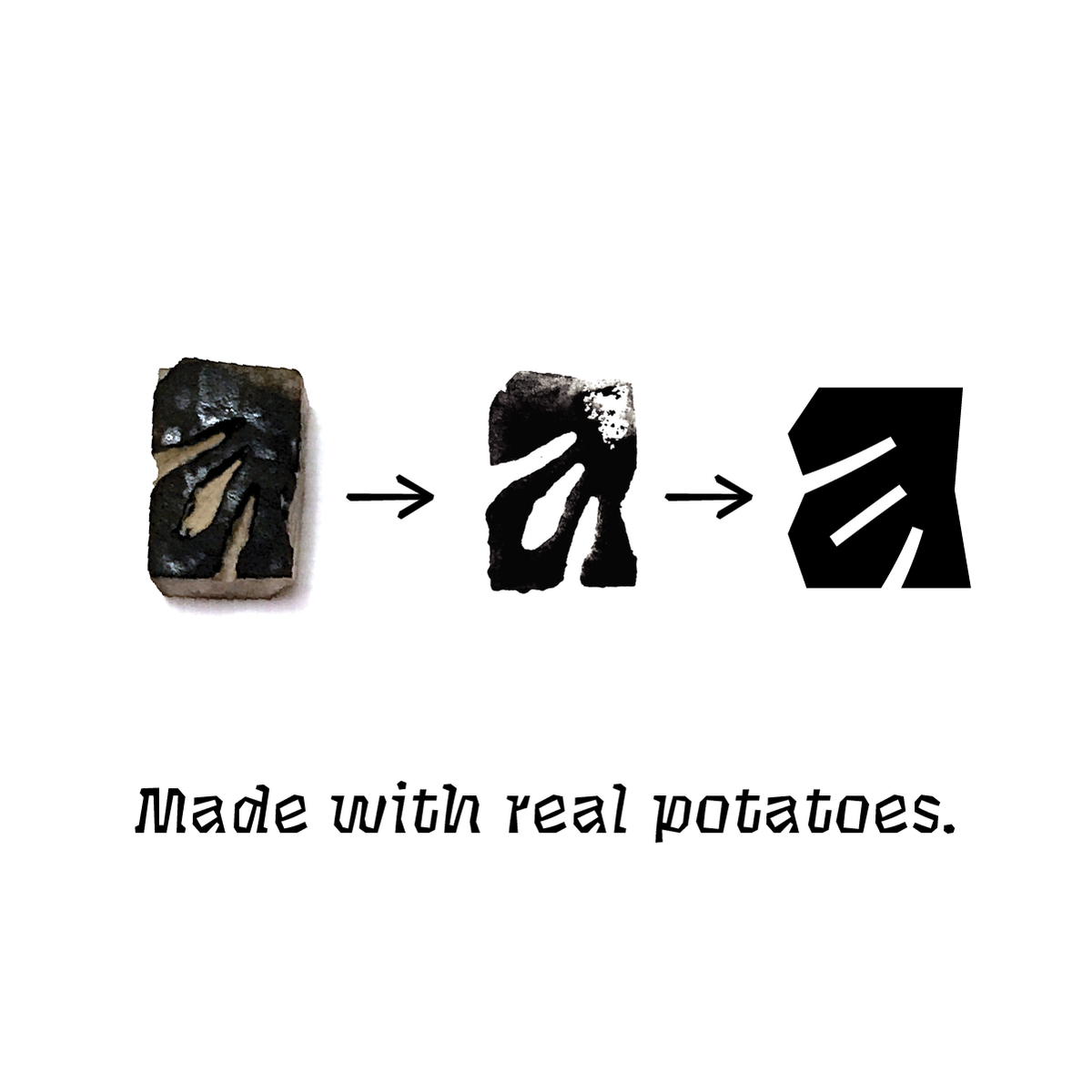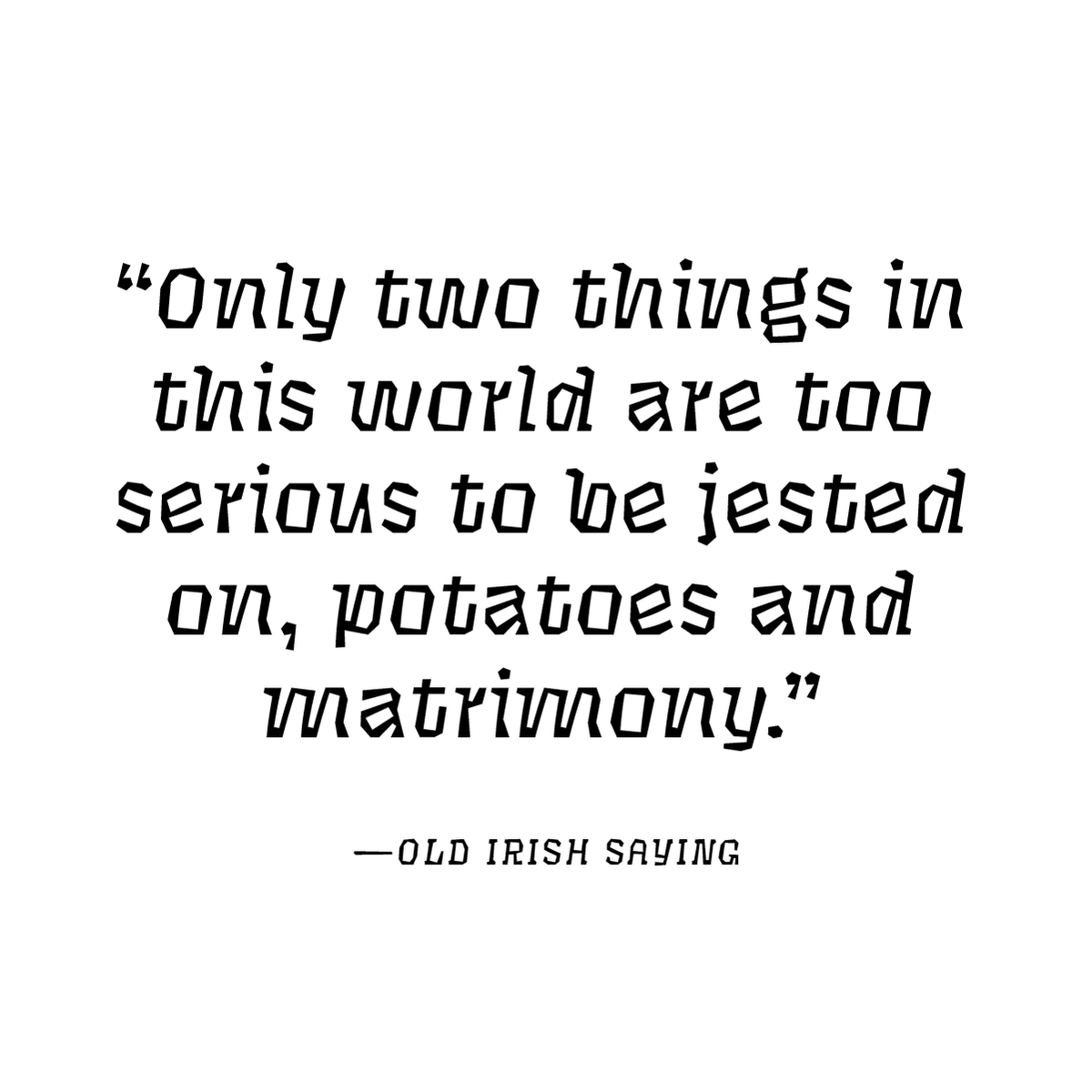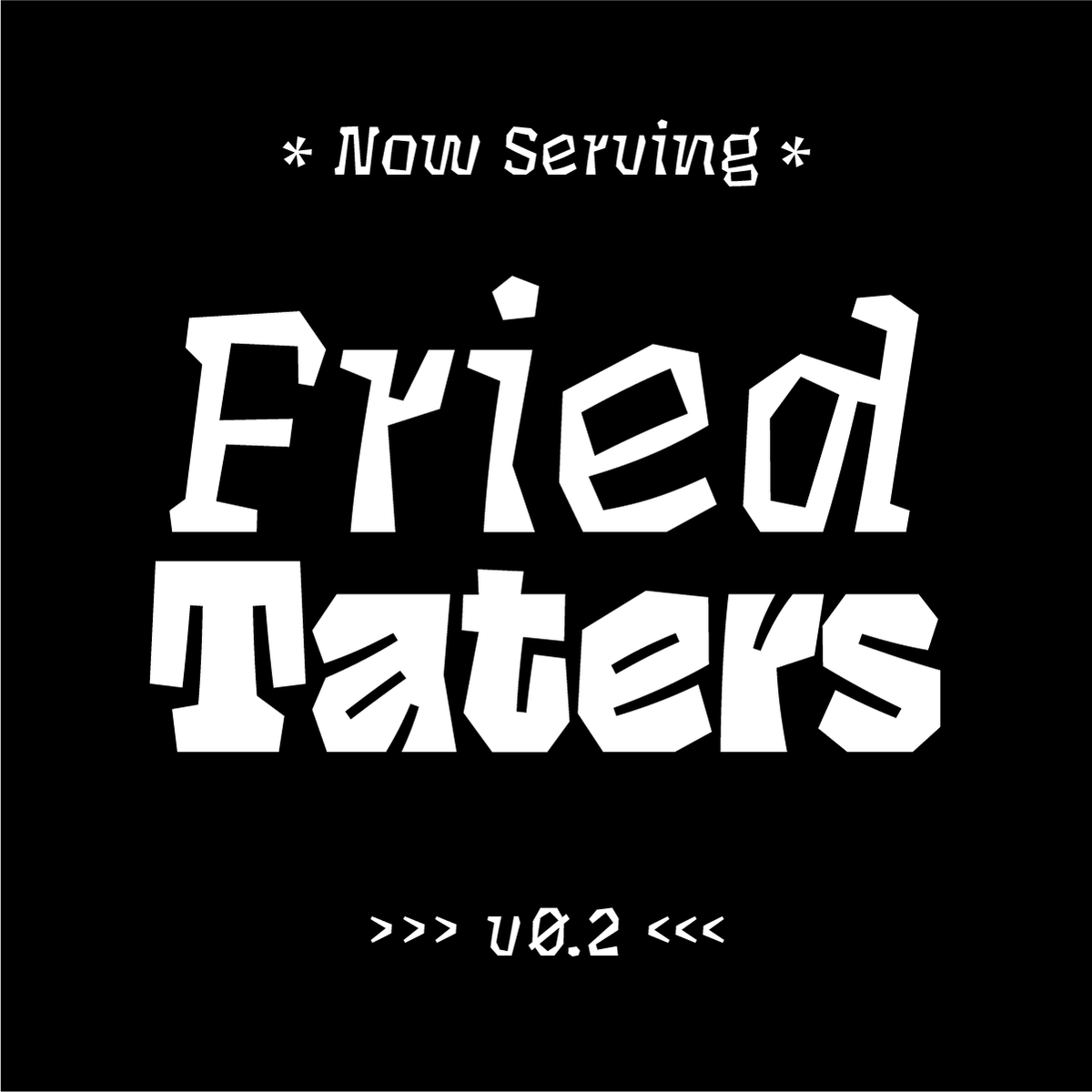
Taters Font
Taters is the product of my time at Type@Cooper West, starting out as a late night experiment in my kitchen with a potato and a carving tool. I made stamps and prints, then devised a set of rules that became this weird and wild typeface. Taters brings bold and fun flavor to whatever it's paired with, perfect for your next music festival branding project or neighborhood bake sale flyer.